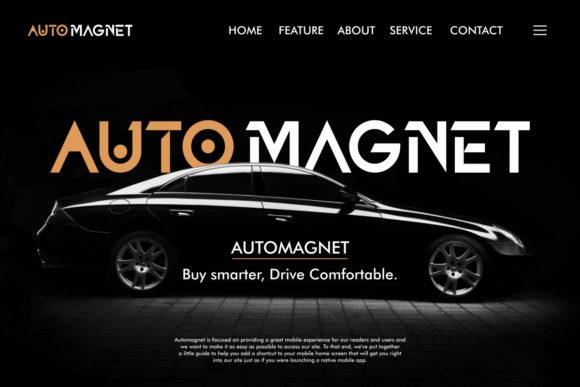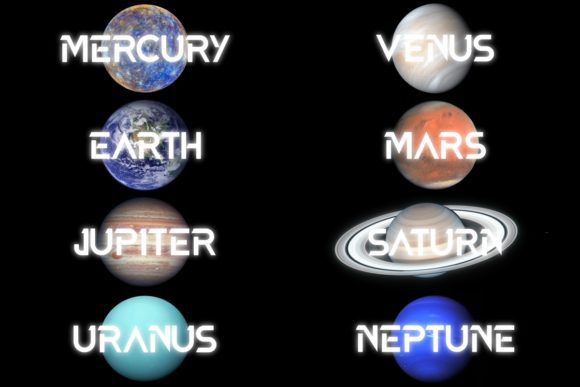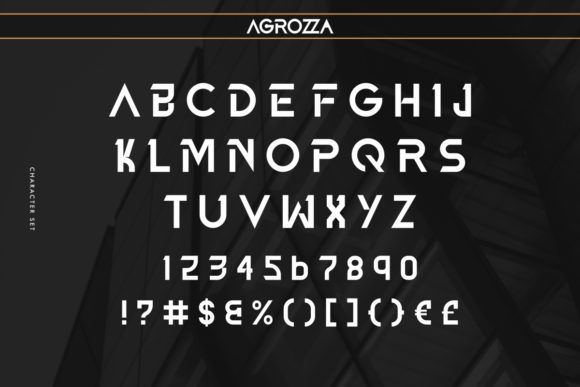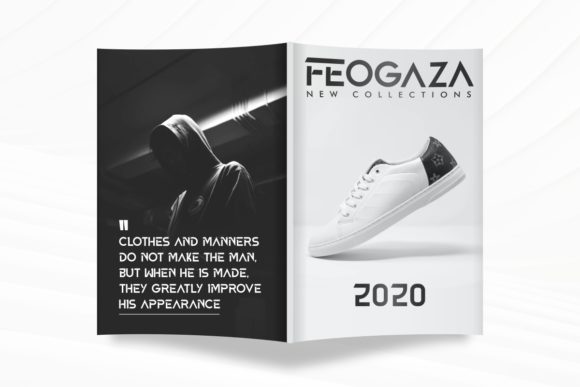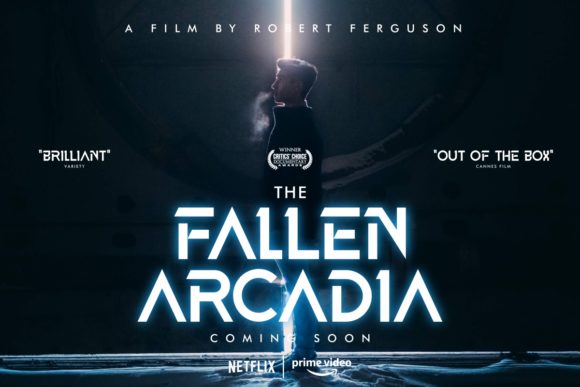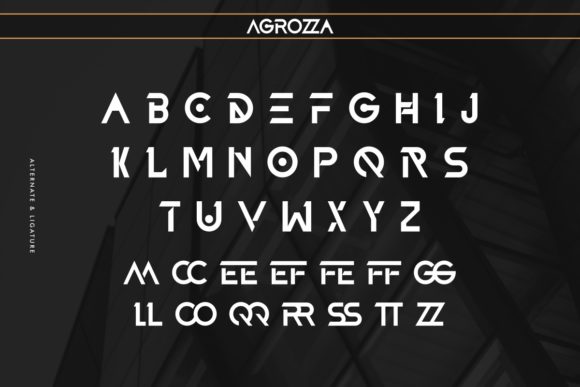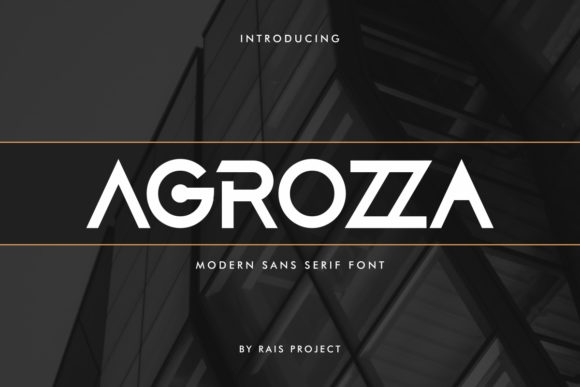
The Designer’s Delight: Unleashing the Power of Agrozza Font
I’ll never forget the moment I stumbled upon Agrozza Font while working on a logo design project for a trendy new cafe. I had been searching for the perfect sans serif font for hours, but nothing seemed quite right. That was until I laid eyes on Agrozza’s stylish and unique design. It was love at first sight! ✨ In this article, I’ll share my experience with Agrozza, its features, and how to make the most of this gorgeous font.
An Honest Review of Agrozza Font
• ✨ Unique and stylish sans serif design that’s perfect for making a statement
• 💫 Highly versatile and suitable for various design projects, from logos to invitations
• 🎨 Beautifully crafted to add a touch of elegance to any design
While Agrozza Font is an excellent choice for many design projects, there are a few things to keep in mind:
• ⚠️ Some users may find the font’s uniqueness a bit challenging to pair with other fonts
• 🤔 Limited availability of language support, mainly focused on English and some European languages
The Story Behind Agrozza Font
Agrozza Font was designed with the intention of creating a unique and stylish sans serif font that would stand out in the design world. Its creator aimed to craft a font that would be both elegant and versatile, perfect for a wide range of design projects. While the real story behind Agrozza might be fictional, its impact on the design community is very real.
PUA (Private Use Area) encoding allows for easy access to glyphs and swashes in a font, making it simpler to use special characters and design elements. In the case of Agrozza Font, PUA encoding enables users to access a wide range of glyphs and swashes, making it a highly versatile font.
Q: Is Agrozza Font suitable for body text?
While Agrozza Font is an excellent choice for headings and titles, it may not be the best option for body text due to its unique design and potential readability issues.